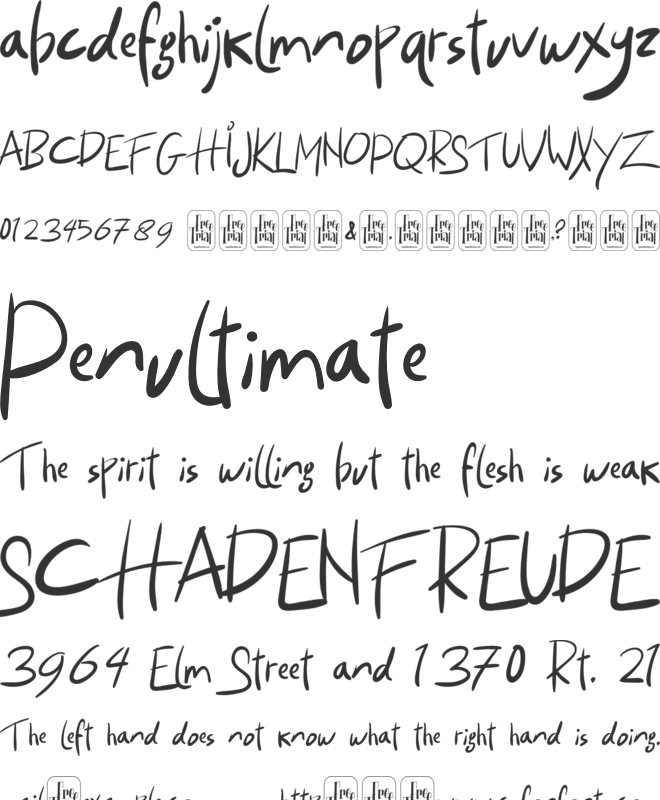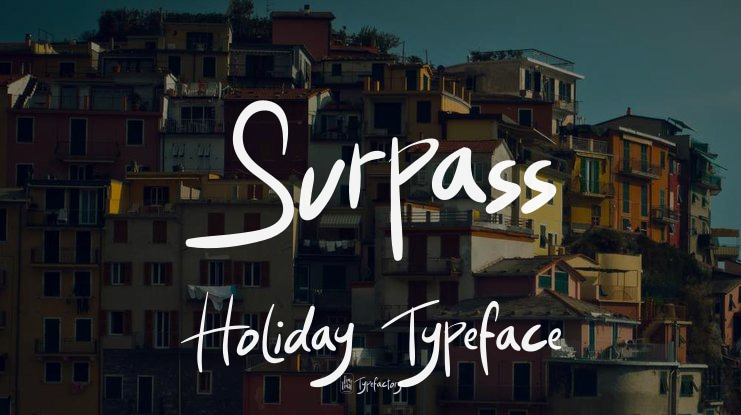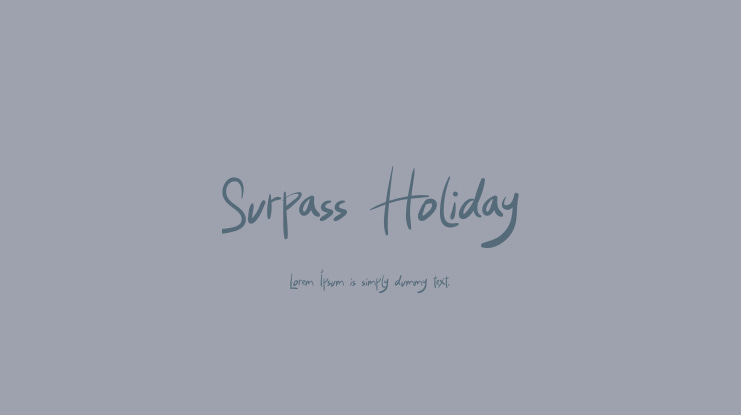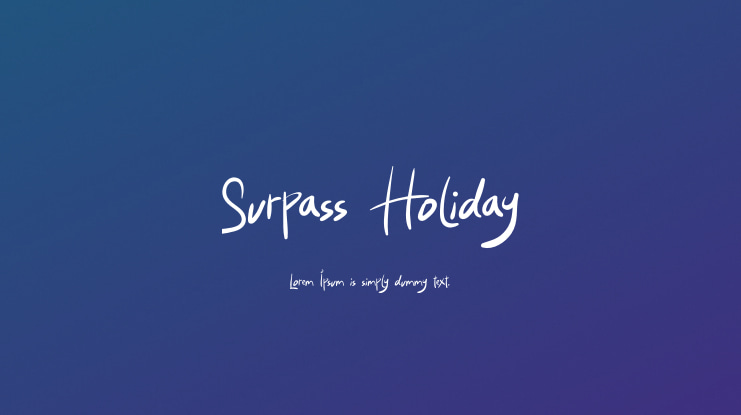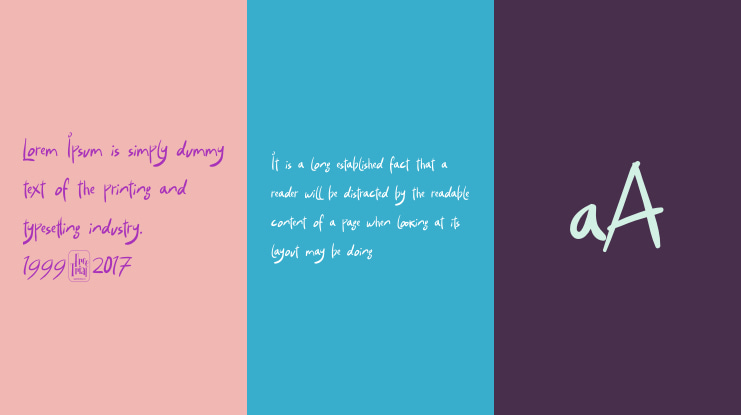
Surpass Holiday Font
Celebrate the joy of the holiday season with "Surpass Holiday," an expressive font that adds a touch of warmth to your designs. Its playful and vibrant letterforms truly embody the spirit of the festivities, making it an ideal choice for merry greetings, festive posters, holiday branding, and more.
Experience the magic of "Surpass Holiday" as it effortlessly brings your designs to life. Whether you're creating heartwarming cards, captivating event announcements, enchanting gift tags, or cheerful social media graphics, this font will captivate your audience with its holiday-inspired style.
Immerse yourself in a world of festive wonder with "Surpass Holiday" and let your designs radiate the warmth of holiday celebrations.